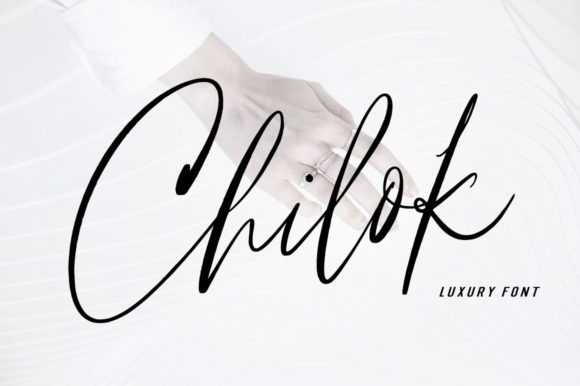
**Indulge in the Enchanting World of Chilok Font: Where Elegance and Authenticity Dance**
Step into the realm of Chilok, a script font that exudes warmth and sophistication, handcrafted by the skilled artisans at Dhan Studio. Let its graceful strokes caress your designs, evoking a timeless charm that will captivate hearts.
With Chilok, you hold the key to transforming your creative visions into masterpieces. Its delicate curves and flowing lines dance across the page, painting a picture of elegance and authenticity. Each letter is a testament to the passion and dedication that went into its creation, ensuring that your words will leave an unforgettable mark.
**Unlock a Font that Unleashes Creativity**
Chilok is not merely a font; it's a gateway to a world of boundless creativity. Let your imagination soar as you explore its versatility, from crafting exquisite wedding invitations that will become cherished keepsakes to designing beautiful stationary art that will add a touch of elegance to any correspondence.
Social media posts will come alive with an eye-catching allure, drawing attention to your every message. Create cute greeting cards that will warm the hearts of your loved ones, expressing your sentiments with a touch of handwritten charm. The possibilities are endless, limited only by the depths of your imagination.
**Indulge in a Font that Captivates**
With Chilok, you'll discover a font that effortlessly captivates and inspires. Its authentic feel transports you to a bygone era, where handwritten letters held a special significance. Allow its graceful strokes to guide your creative journey, leaving an enchanting trail of beauty in its wake.
Let Chilok become the heart and soul of your designs, adding a touch of magic to every project you undertake. Its versatility and elegance will transform your creative endeavors into works of art, leaving a lasting impression that will endure the test of time.
**Embrace the Chilok Experience Today**
Join countless creative minds who have fallen in love with the allure of Chilok. Experience firsthand the beauty, versatility, and timeless charm that have made this font a favorite among discerning designers worldwide.
Unlock the full potential of your creativity and let Chilok guide you on a journey of inspiration. Dive into a world of elegance and authenticity and discover the infinite possibilities that await you. The Chilok Font awaits, ready to transform your creative visions into captivating masterpieces.